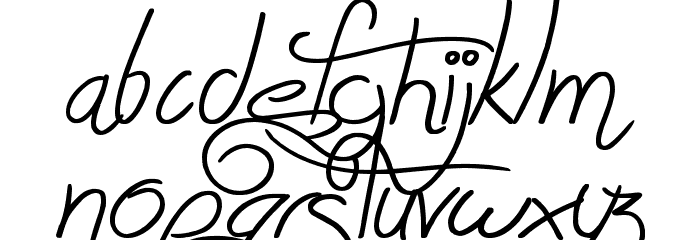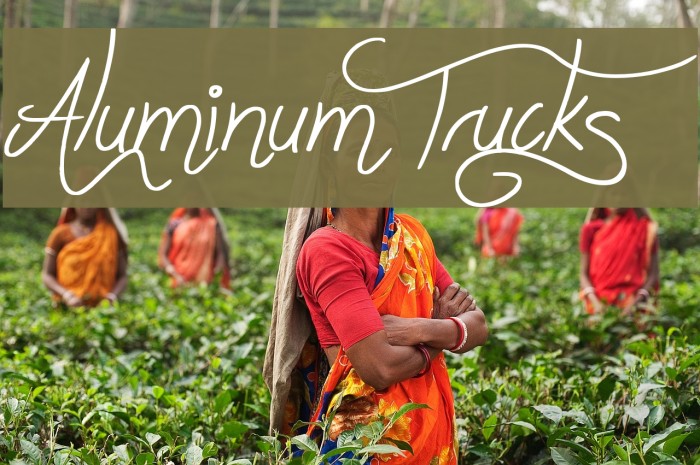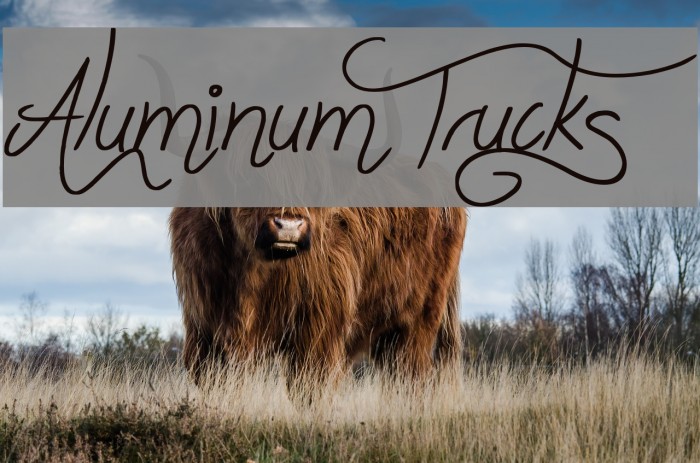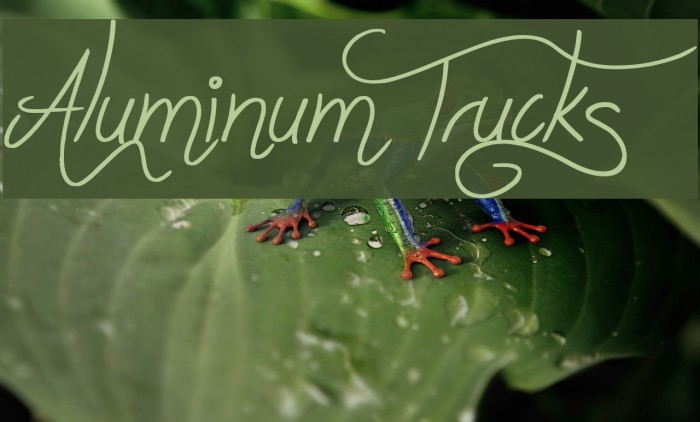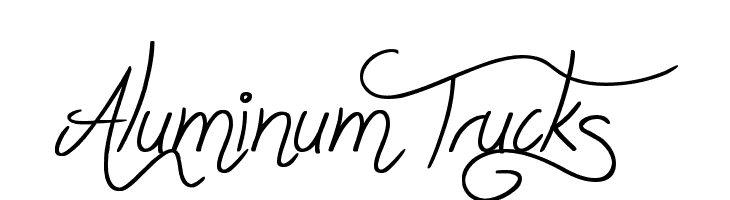
Aluminum Trucks Font
This font features an elaborate and decorative script style, characterized by its flowing, interconnected letters and intricate swashes. The uppercase letters exhibit a high degree of flourish, with extended strokes that create a sense of elegance and movement. The lowercase letters maintain a consistent style, with some characters featuring unique loops and curls that add to the overall ornate appearance. The font's design is reminiscent of traditional calligraphy, offering a sophisticated and artistic look. It is well-suited for projects that require a touch of elegance and creativity, such as invitations, branding, and artistic designs.
An elaborate and decorative script font with flowing, interconnected letters and intricate swashes.
- Proposed Projects: Ideal for wedding invitations, branding, artistic designs, and any project requiring an elegant touch.
- Category: Script
- Character Spacing: Tight
- Use Case: Logos, Invitations, Artistic designs